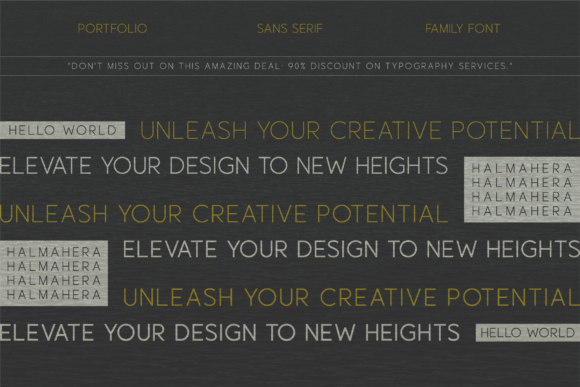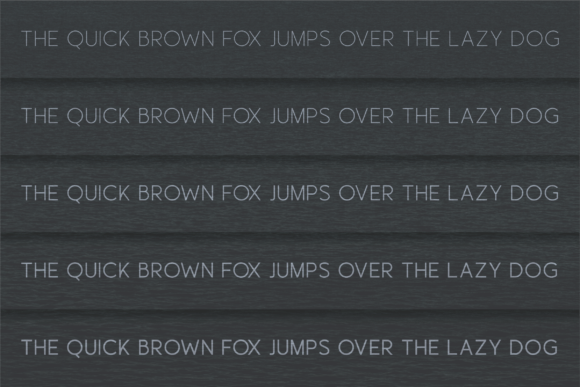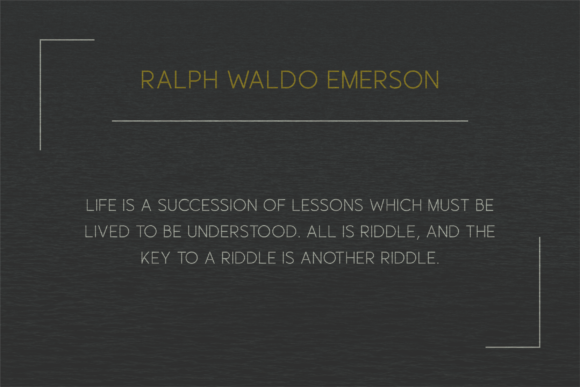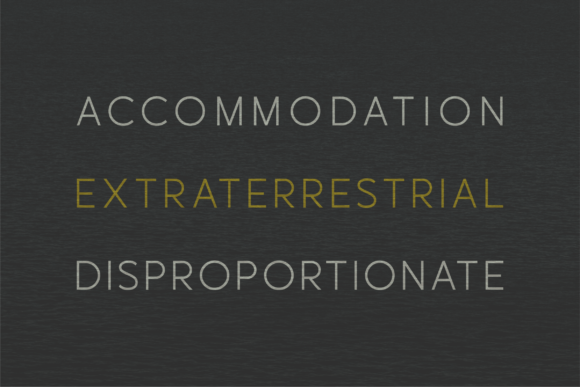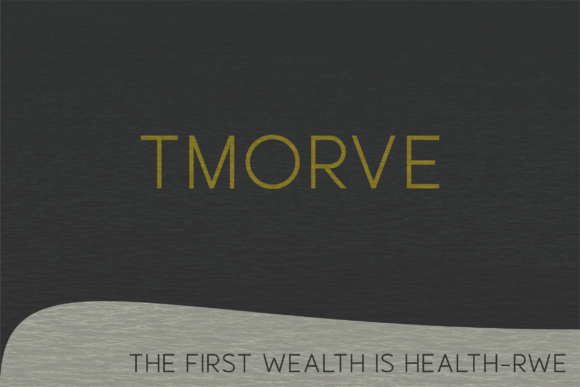
Introducing Halmahera Font: The Epitome of Sophistication and Minimalism
In the realm of typography, a font can make or break the visual appeal of a design. For designers and crafters seeking to elevate their projects, the Halmahera font family is a game-changer. This sublime sans serif array embodies the perfect blend of sophistication and minimalism, making it an indispensable asset for any creative endeavor.
The Essence of Halmahera Font
The Halmahera font family is a masterclass in precision and elegance. With five unique weights, this versatile font is designed to cater to a wide range of applications, from glossy magazines and striking logos to mesmerizing film posters. Its pristine sans serif design ensures that your message is conveyed with clarity and poise, while its luxurious feel adds a touch of sophistication.
Contemporary Edges, Timeless Elegance
What sets Halmahera apart is its ability to seamlessly marry contemporary edges with a timeless elegance. The font’s clean lines and minimalist aesthetic ensure that it remains relevant, even in the most fast-paced and ever-changing design landscapes. Whether you’re working on a branding project or a high-end editorial piece, Halmahera’s precision-hewn design guarantees a lasting impression.
One of the most significant advantages of the Halmahera font family is its versatility. With five distinct weights, you can tailor your typography to suit any design requirement. From the light, airy feel of the thinner weights to the bold, commanding presence of the heavier weights, Halmahera offers an unparalleled range of creative possibilities.
Elevate Your Designs with Halmahera
So, how can you leverage the Halmahera font family to take your designs to the next level? Here are a few suggestions:
- Branding: Use Halmahera to create a lasting impression with your logo, ensuring that your brand stands out with elegance and sophistication.
- Editorial Design: Elevate your magazine or newspaper layouts with Halmahera’s pristine sans serif design, ensuring that your content is conveyed with clarity and style.
- Film and Theater Posters: Make a bold statement with Halmahera’s heavier weights, perfect for creating eye-catching titles and credits.
The Transformative Potential of Halmahera
The Halmahera font family has the power to transform your designs in ways you never thought possible. Its impeccable blend of refinement and simplicity ensures that your projects exude a sense of endless elegance, setting you apart from the competition. By incorporating Halmahera into your design arsenal, you’ll unlock a world of creative possibilities, empowering you to push the boundaries of typography and design.
Experience the Halmahera Difference
Ready to experience the transformative potential of the Halmahera font family? Dive into the world of sophisticated typography and discover how this sublime sans serif array can elevate your designs. With Halmahera, you’ll enjoy:
- Unparalleled Versatility: Five unique weights to suit any design requirement.
- Timeless Elegance: A pristine sans serif design that remains relevant in any design landscape.
- Endless Creative Possibilities: Unlock a world of typographic possibilities with Halmahera.
In conclusion, the Halmahera font family is a must-have for designers and crafters seeking to elevate their projects. Its sublime blend of sophistication and minimalism, coupled with its versatility and timeless elegance, make it an indispensable asset for any creative endeavor. Explore the transformative potential of Halmahera today and discover a world of limitless design possibilities.